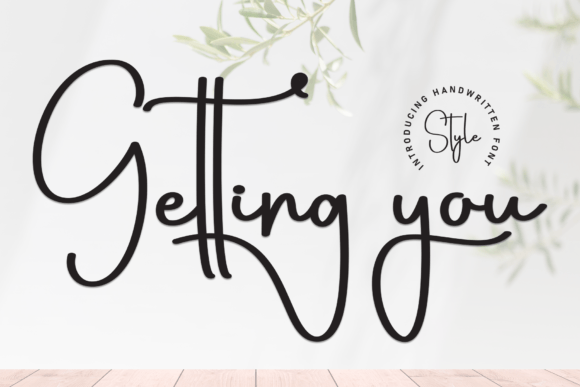
Prepare yourself to be captivated by Getting You, a script font family that exudes charm and playfulness. Designed with love by andikastudio, this font is a feast for the eyes, offering a delightful blend of sweetness and friendliness.
Whether you're creating Halloween posters, invitations, greeting cards, or social media graphics, Getting You is the perfect choice for adding a touch of whimsy and warmth to your designs. This versatile font can transform simple words into captivating expressions, leaving a lasting impression on your audience.
With its natural and unique style, Getting You effortlessly complements a wide range of design styles. Unleash your creativity and explore the endless possibilities that await you with this captivating font. From enchanting wedding invitations to eye-catching marketing materials, Getting You is your ultimate design companion.
Immerse yourself in the world of Getting You, where imagination reigns supreme. Let your words dance across the page with a unique charm that will leave your readers spellbound.